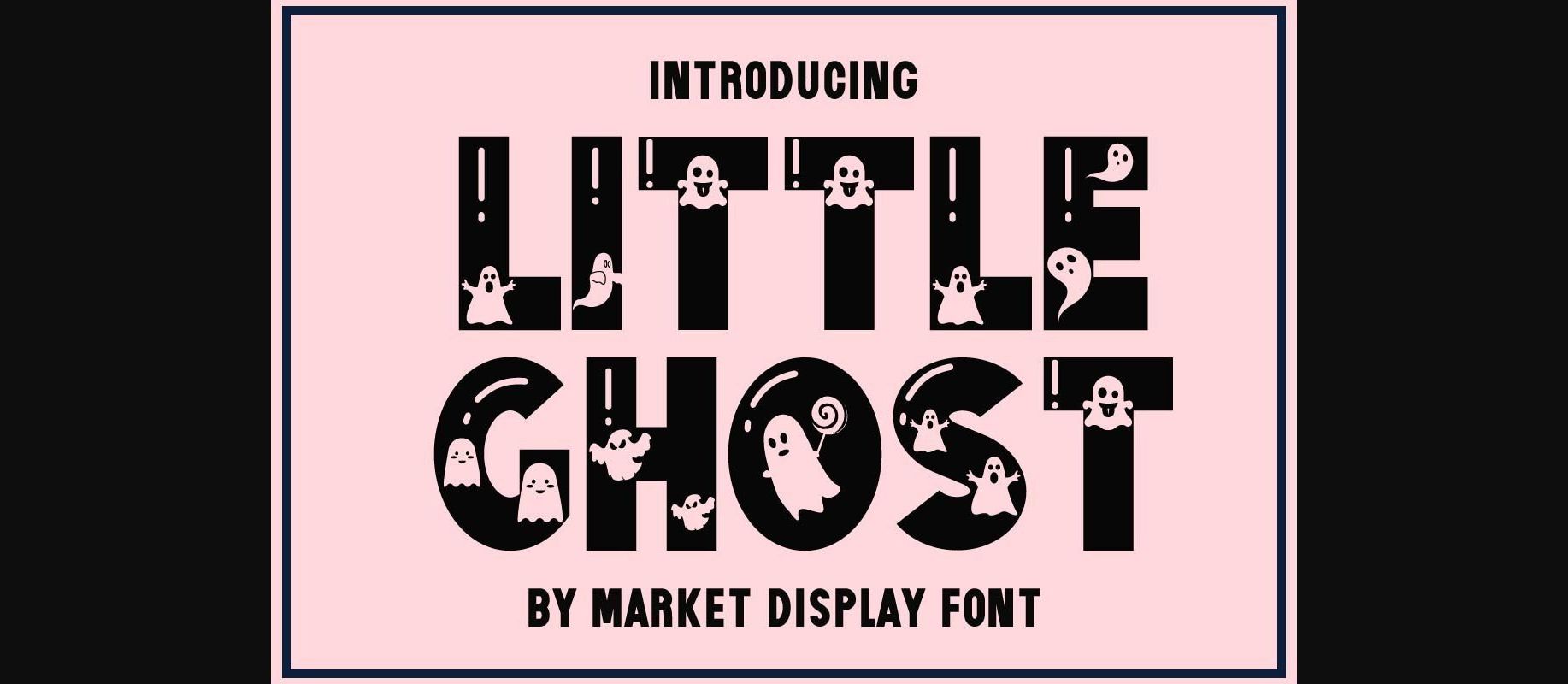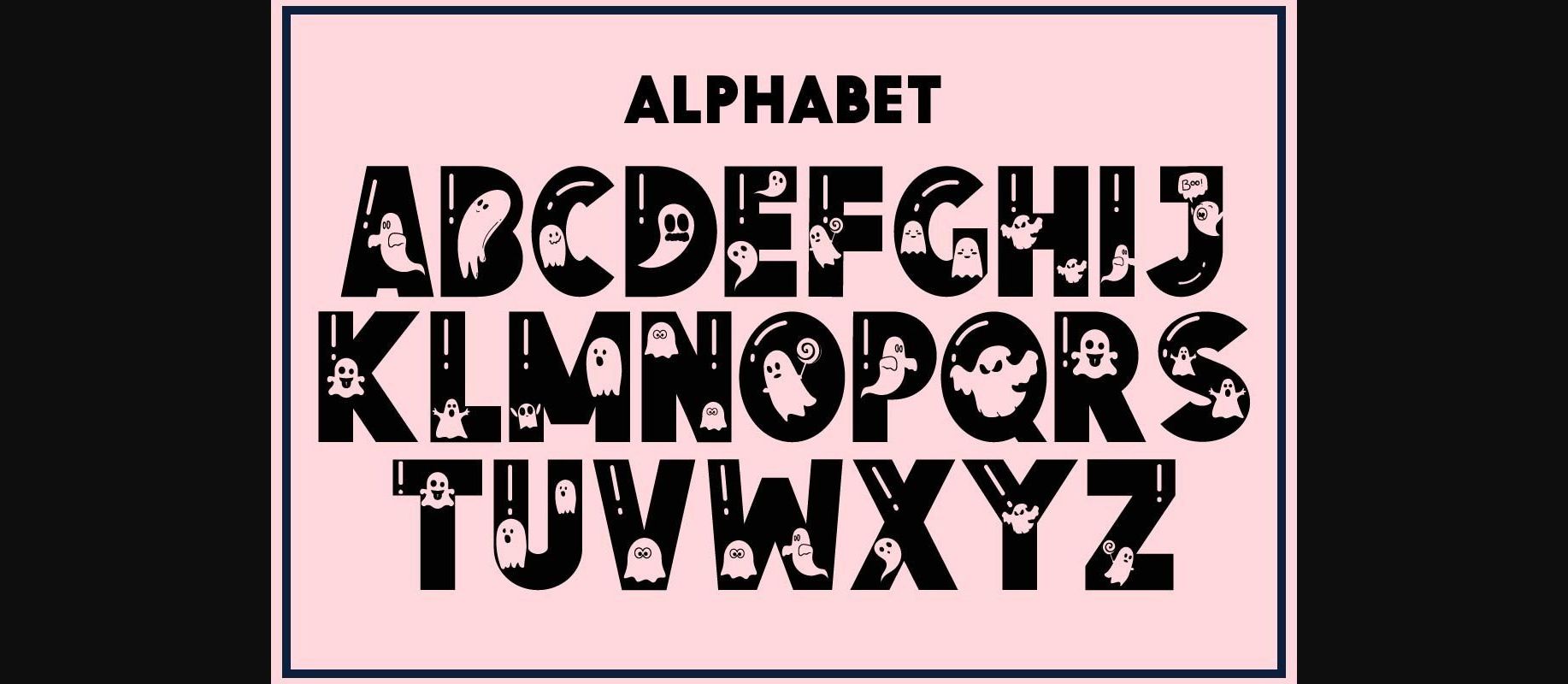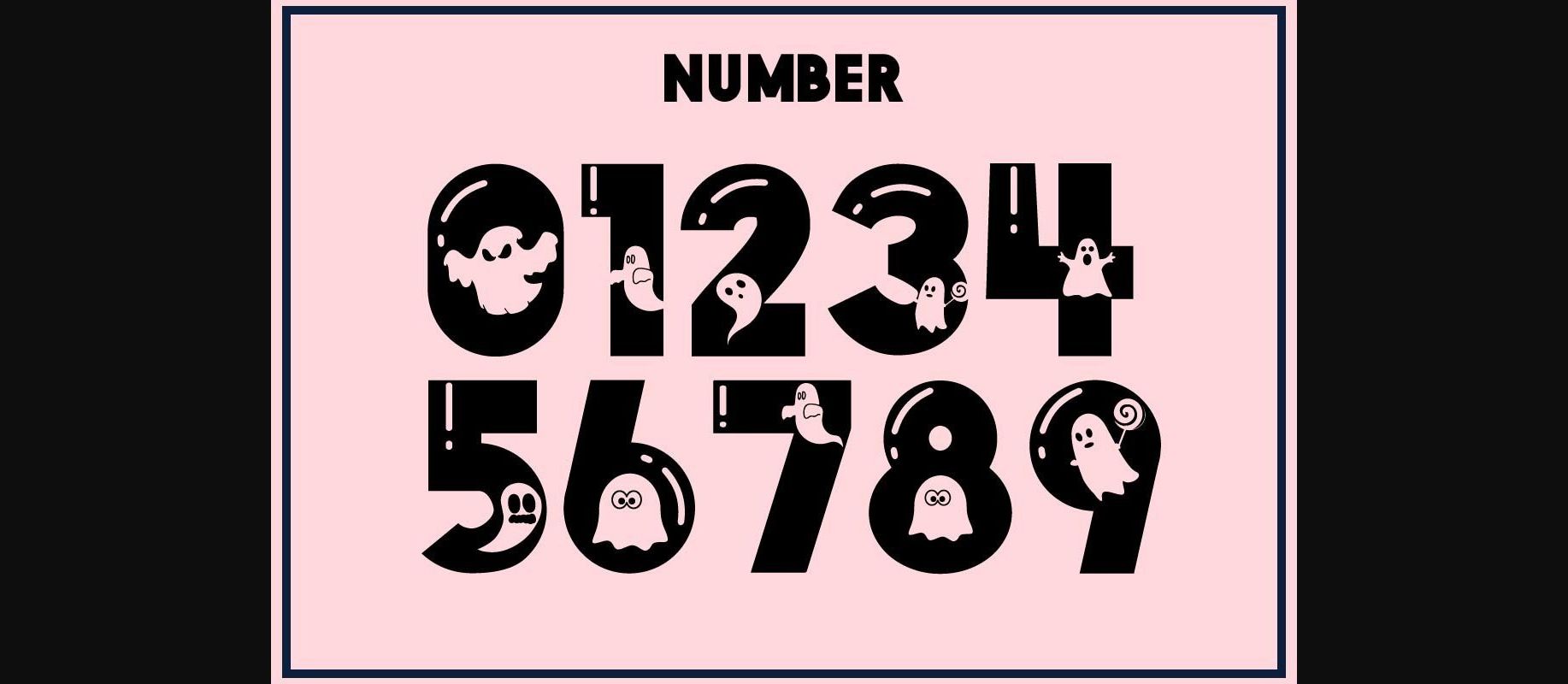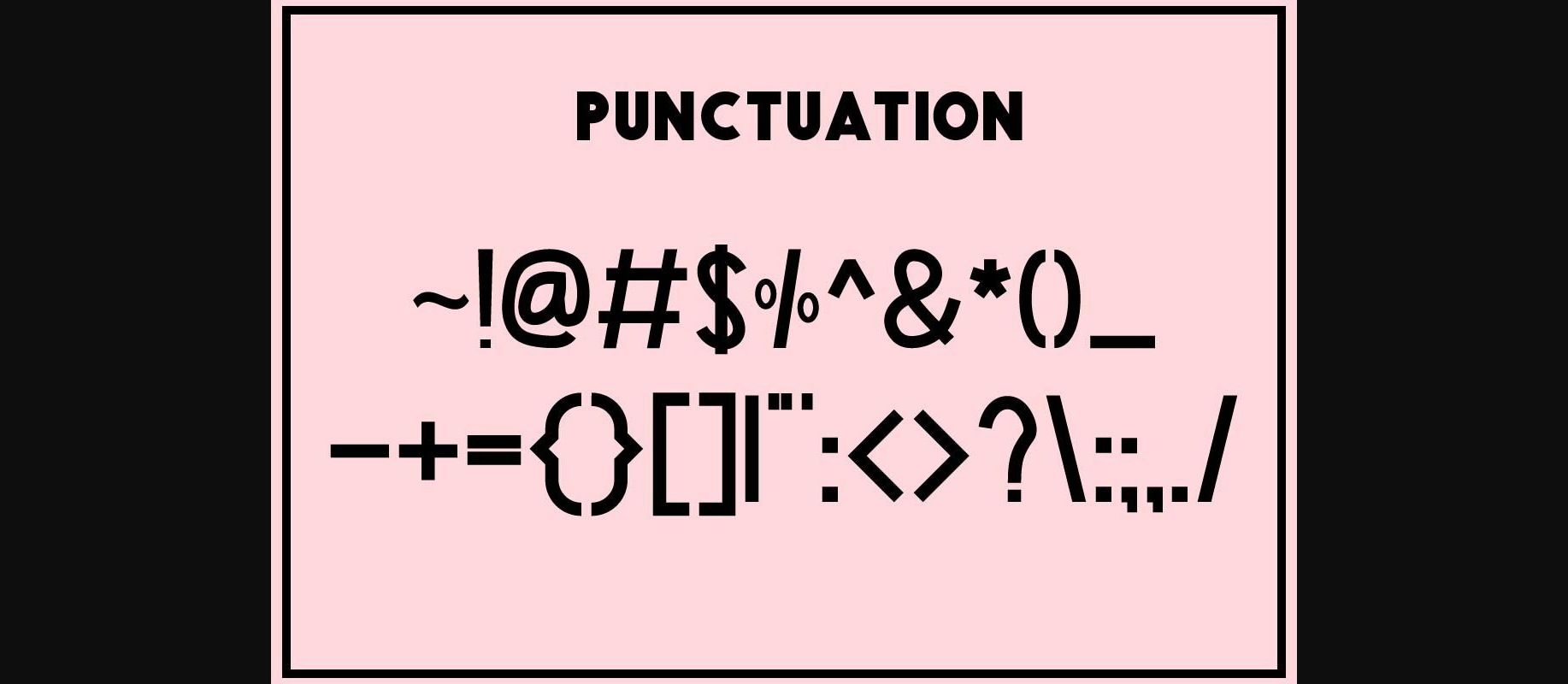
HomeDecorative FontsLittle Ghost Font Decorative Fonts Little Ghost Font FacebookXPinterestWhatsApp 1 of 6 ... Little Ghost Font Poster 2... Little Ghost Font Poster 3... Little Ghost Font Poster 4... Little Ghost Font Poster 5... Little Ghost Font Poster 6... About Little Ghost Font Little Ghost is a fun and adorable decorative that will fill your designs with cheerfulness! Use it on covers, posters, crafty DIY projects, and anything that needs to pop! DOWNLOAD NOW People also explored Second Font Caslon No 540 D Christmas Blessings Font Aesthetic House Font Bounce Print Font Signline Font Venetian Light Advertising | Singboard Mockup Chantress Vittorea La Rosie Font 314 0 TagsLittle Ghost Font Previous articleHappy Birth Day FontNext articleSpider Webs Font LEAVE A REPLY Cancel reply Comment: Please enter your comment! Name:* Please enter your name here Email:* You have entered an incorrect email address! Please enter your email address here Website: Save my name, email, and website in this browser for the next time I comment. Personal Use Free Kinda Sweet Personal Use Free Read more about this font Royal Bengal Tiger Personal Use Free Read more about this font Browie Personal Use Free Read more about this font Folgore Personal Use Free Read more about this font BLOG Free Fonts Risk: Why Free Fonts Can Be Dangerous for Designers Free Fonts Risk: Why Free Fonts Can Be Dangerous for Designers Using free fonts is a common practice in web and graphic design. However, the... Transform Your Website: Elevate Your Typography with 7 Best Web Font Generators Top 7 Google Fonts Alternatives for Faster and Privacy-Friendly Web Design (2025) Exploring Font Trends